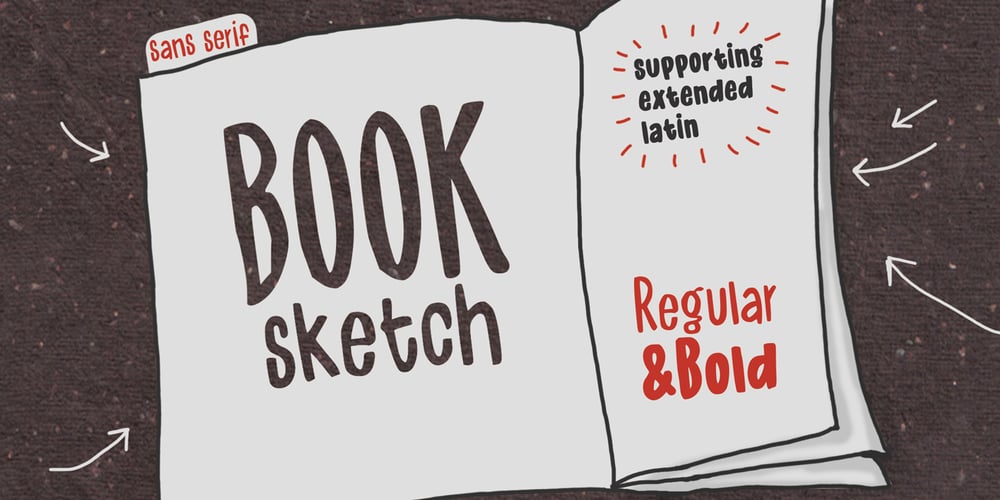
Book Sketch Font Family was designed by Ziza Stupkova and published by Ziza Type. Book Sketch contains 2 styles and family package options. Book Sketch is hand written font which will deliver a friendly look to children books, label designs, posters or banners.